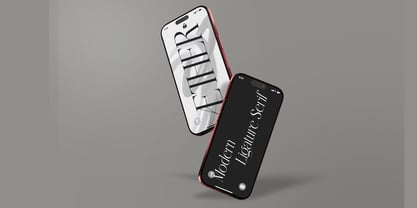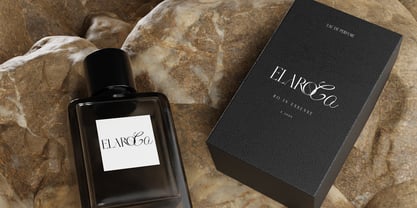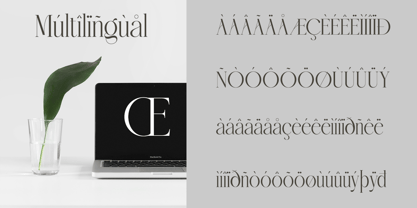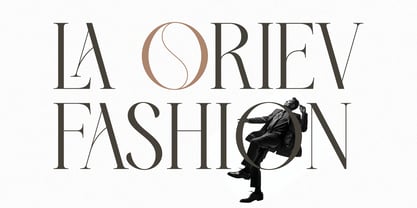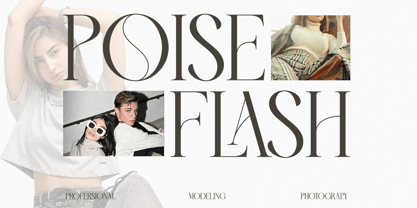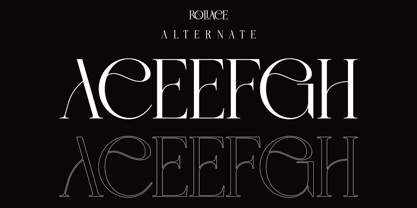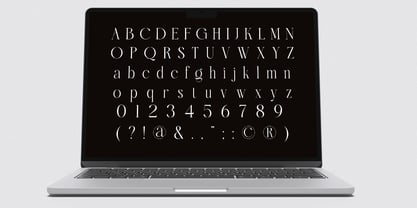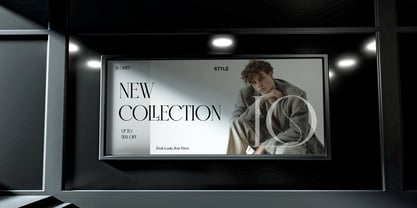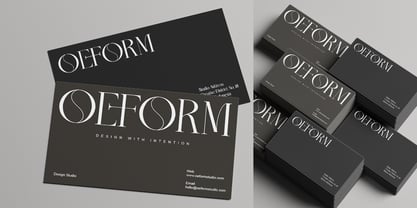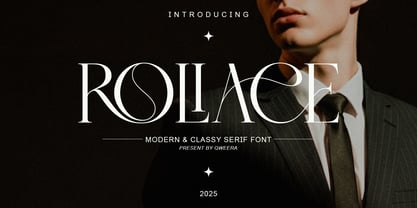
Roliace
by Qweera Studio
The Roliace Font Family was designed by Idhham Cholid Rikzano Yahya and published by Qweera Studio. Roliace contains 2 styles and family package options. More about this family
Roliace is a modern classy serif designed with elegant contrast and balanced proportions. It provides sophisticated typography suitable for branding, editorial, and corporate identity systems. With alternates, ligatures, and multilingual support, Roliace delivers flexible professional typography for both digital and print applications. Perfect for designers seeking classy luxury serif typography. Features Alternates Ligatures Multilingual support Professional kerning Elegant contrast Specifications Language Support: Western, Central Europe Features: Alternates, Ligatures Recommended For Luxury branding, editorial typography, corporate identity, packaging design, fashion logos.
Designers: Idhham Cholid Rikzano Yahya
Foundry: Qweera Studio
Roliace